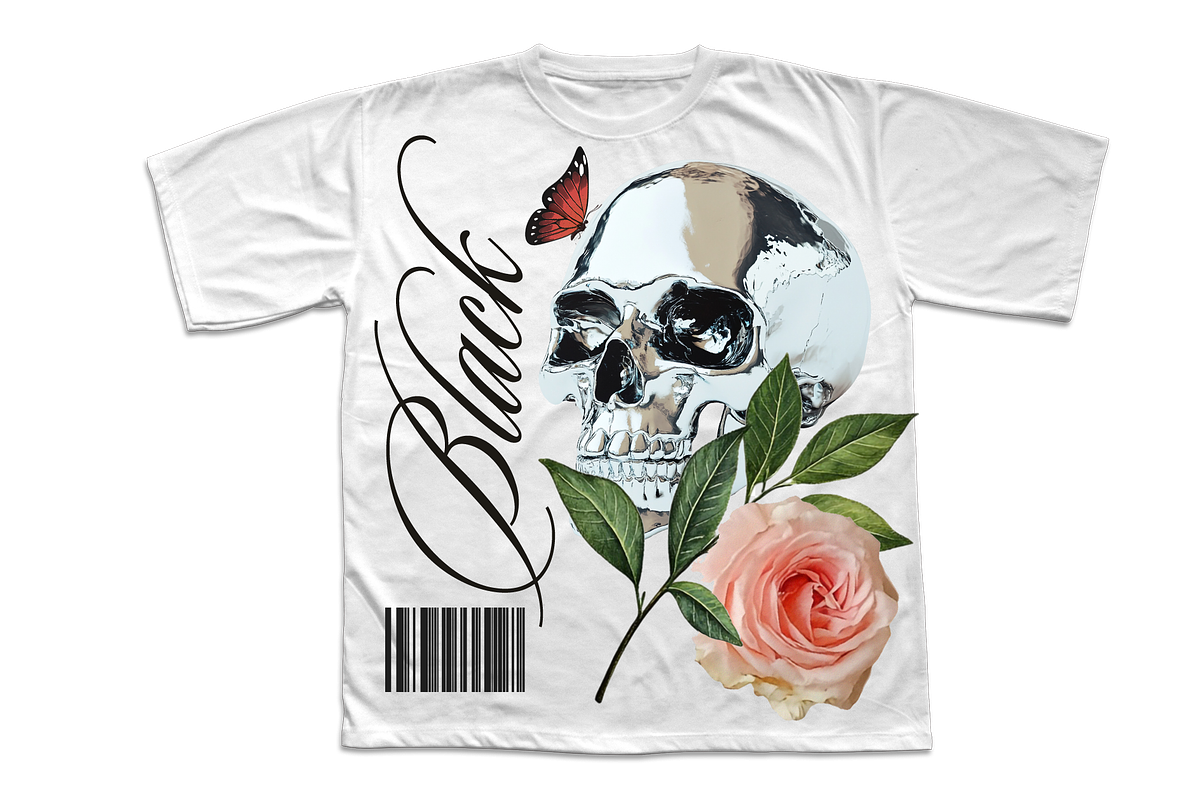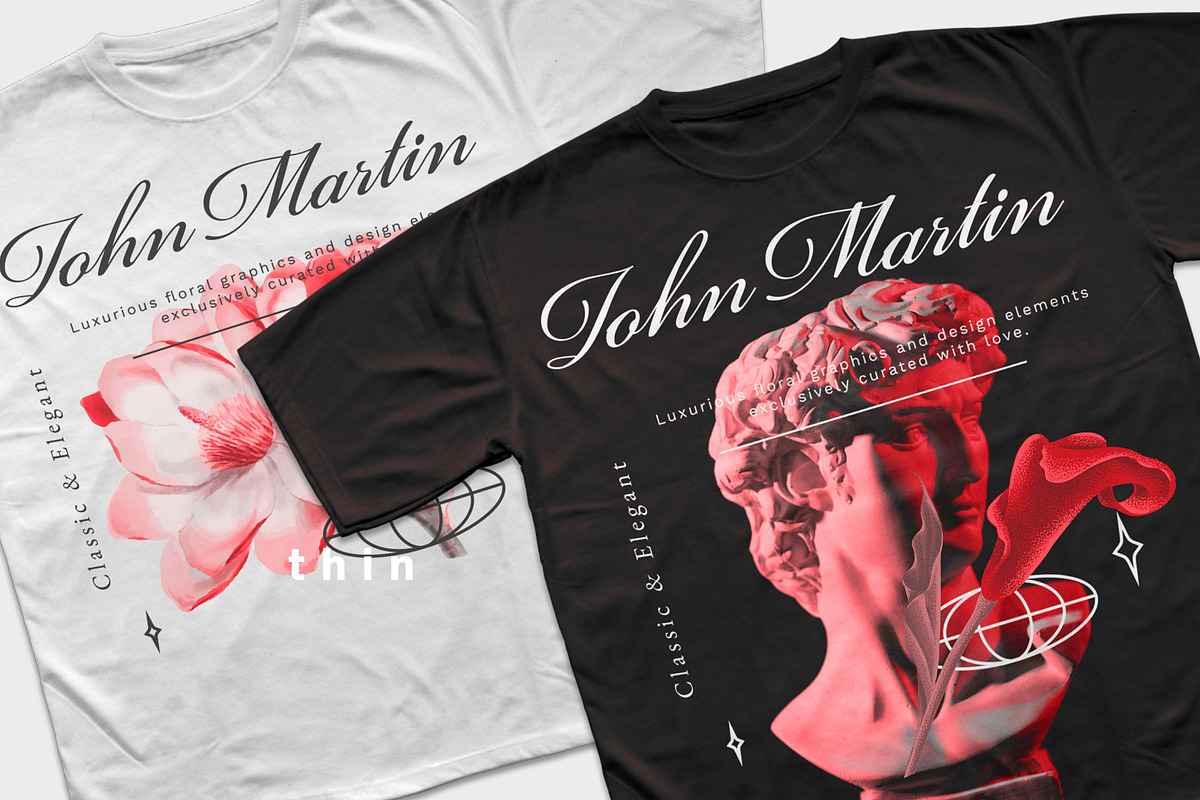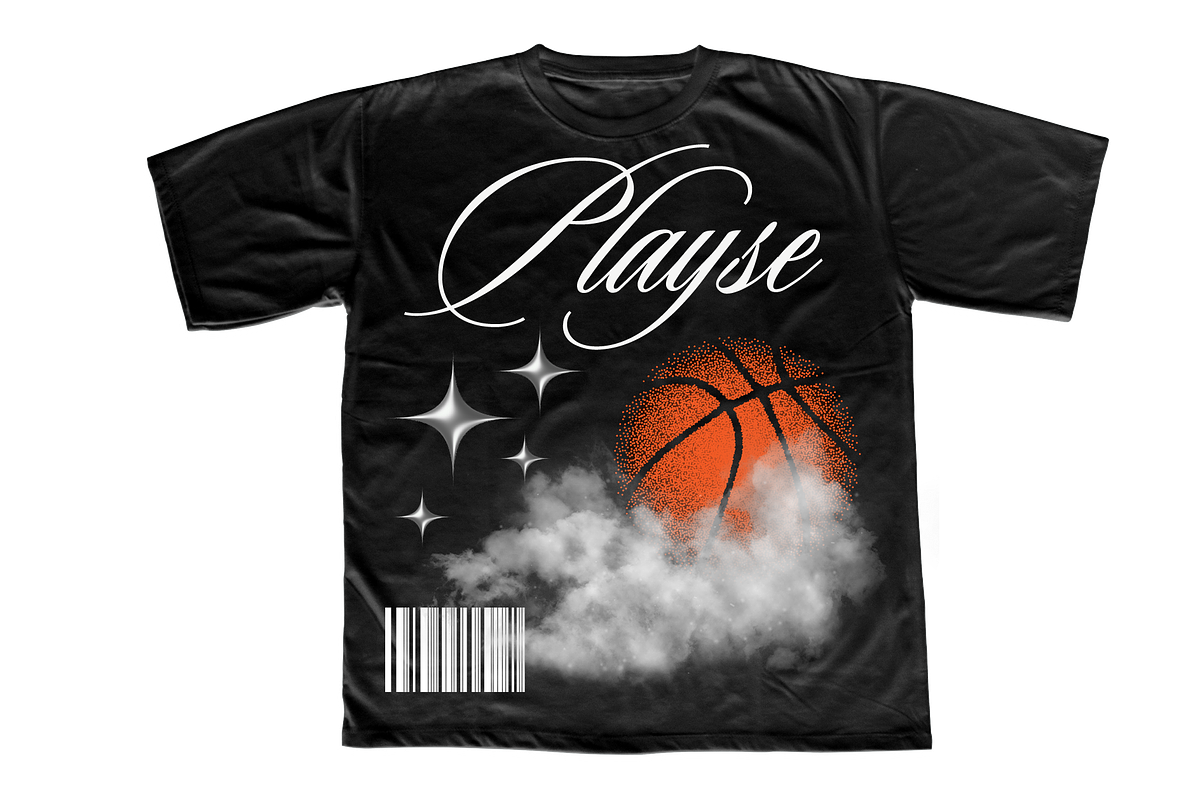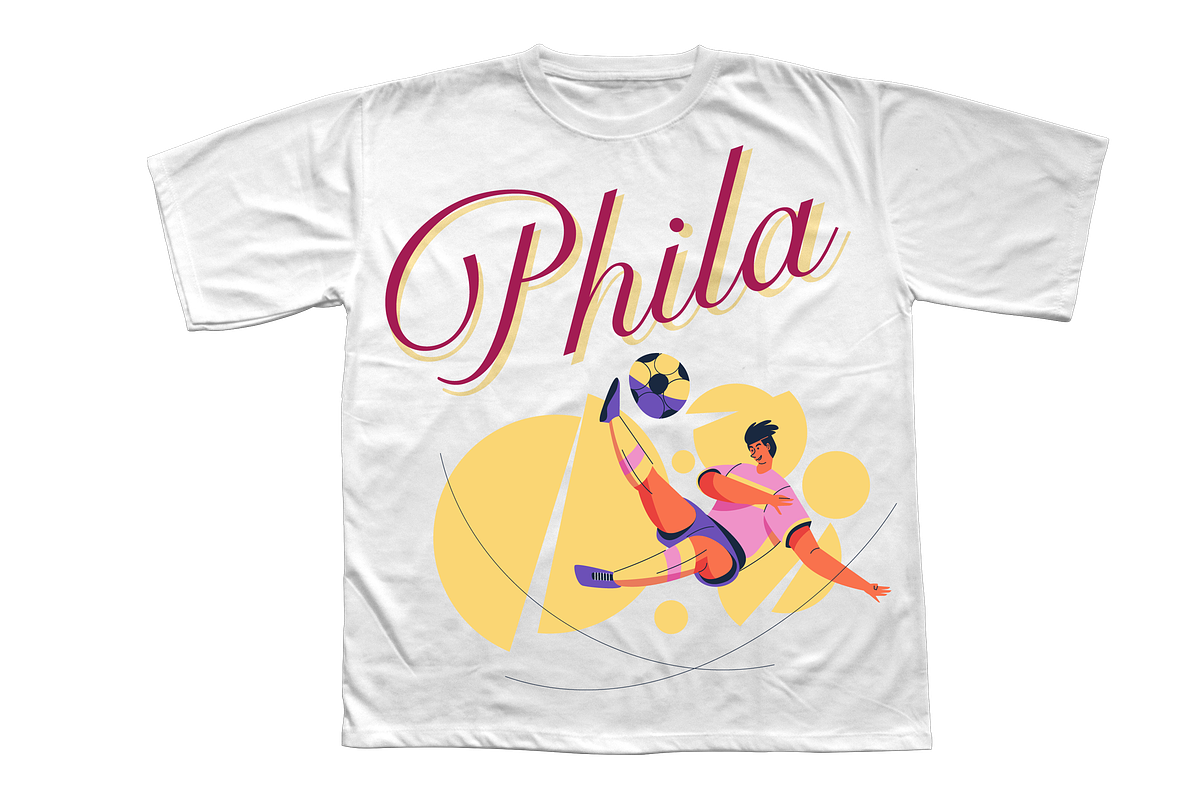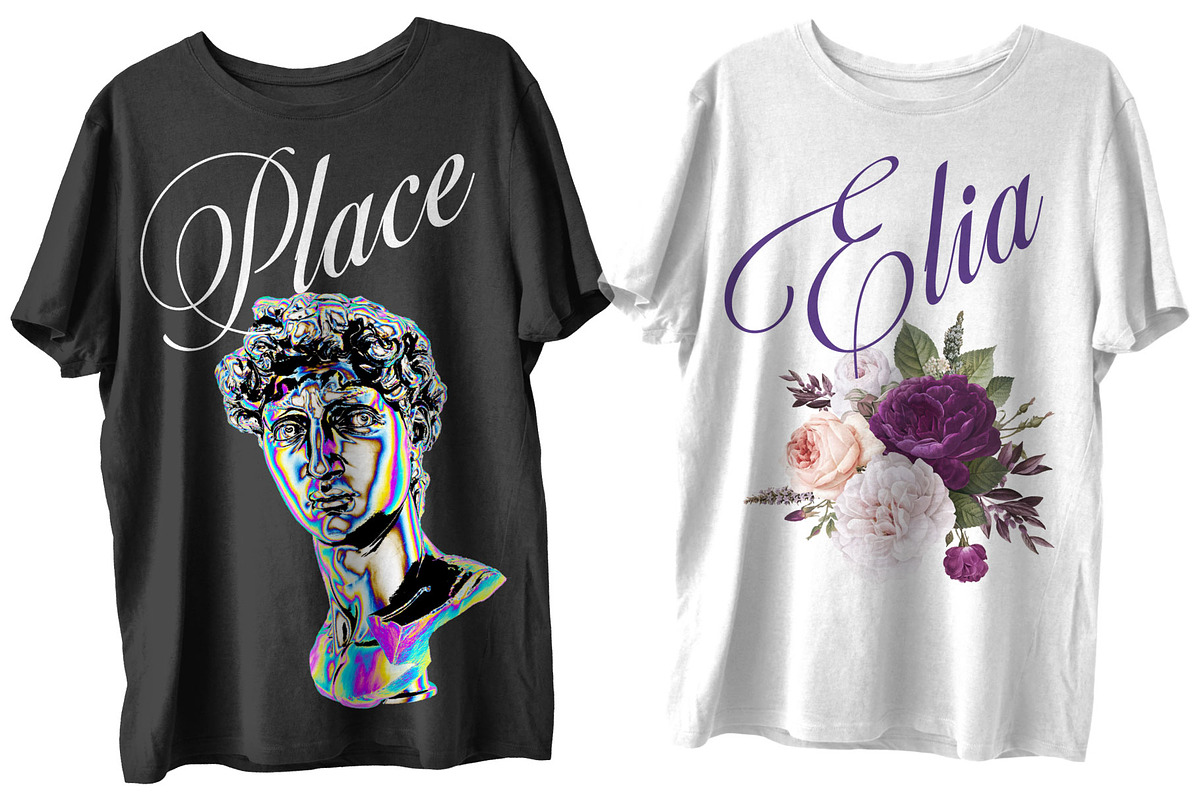
T-Shirt Script Bundle
Elegant collection of handcrafted script fonts perfect for T-shirt designs, logos, branding, quotes, and creative apparel projects. Stylish, bold, and easy to use for eye-catching typography.